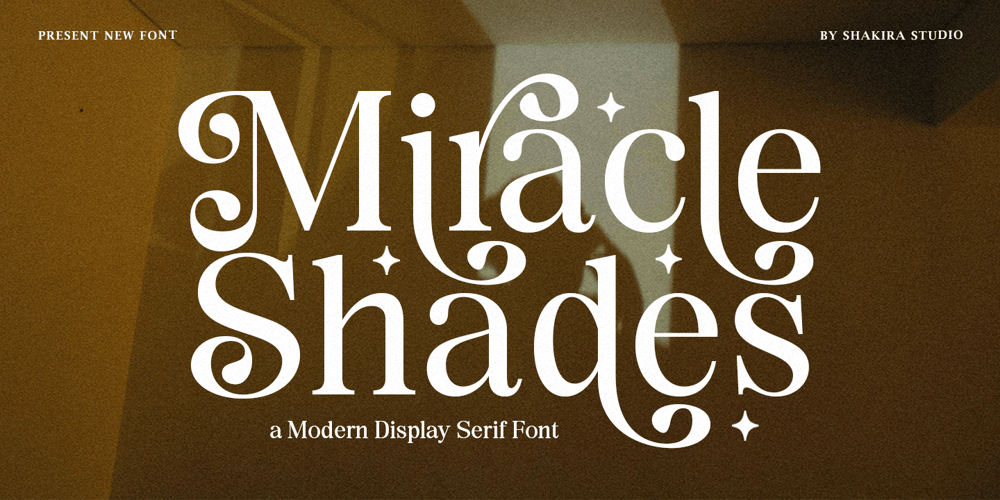
Miracle Shades Font Family was designed by Idhham Cholid Rikzano Yahya and published by Shakira Studio. Miracle Shades contains 2 styles and family package options. “Introducing Miracle Shades, a Modern Serif Display font that offers a sleek and contemporary edge to any design project. Available in both regular and italic versions, Miracle Shades is crafted for those who seek a blend of modernity and sophistication. Its distinct serifs and clean lines make it ideal for high-impact headlines and elegant branding. Whether you’re designing for print, web, or digital media, Miracle Shades delivers a versatile typography solution that commands attention.”Here’s what you get: Regular & Italic All Multilingual symbol Opentype features ( ligature, alternate ) Accessible in the Adobe Illustrator, Adobe Photoshop, Adobe InDesign, even work on Microsoft Word. PUA Encoded Characters – Fully accessible without additional design software. Multilingual character supports : (Afrikaans, Albanian, Catalan, Croatian, Czech, Danish, Dutch, English, Estonian, Finnish, French, German, Hungarian, Icelandic, Italian, Lithuanian, Maltese, Norwegian, Polish, Portuguese, Slovenian, Spanish, Swedish, Turkish, Zulu)Follow my shop for upcoming updates, and for more of my work, If you need a custom license or have questions please visit our website: www.shakirastudio.comThank you!Shakira Studio